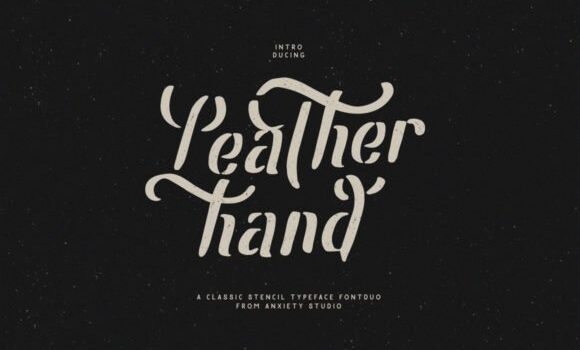
leatherhand
Leatherhand Font - Featured Image
Leatherhand Font – Free Download Introduction to Leatherhand Font This gorgeous font duo consists of two unique fonts, Leatherhand and Marotho. 📸 Preview Gallery 6 images 📌 Product Name Leatherhand Font 👤 Author lickermelody 📂 Category Explore ⬇️ Download Leatherhand